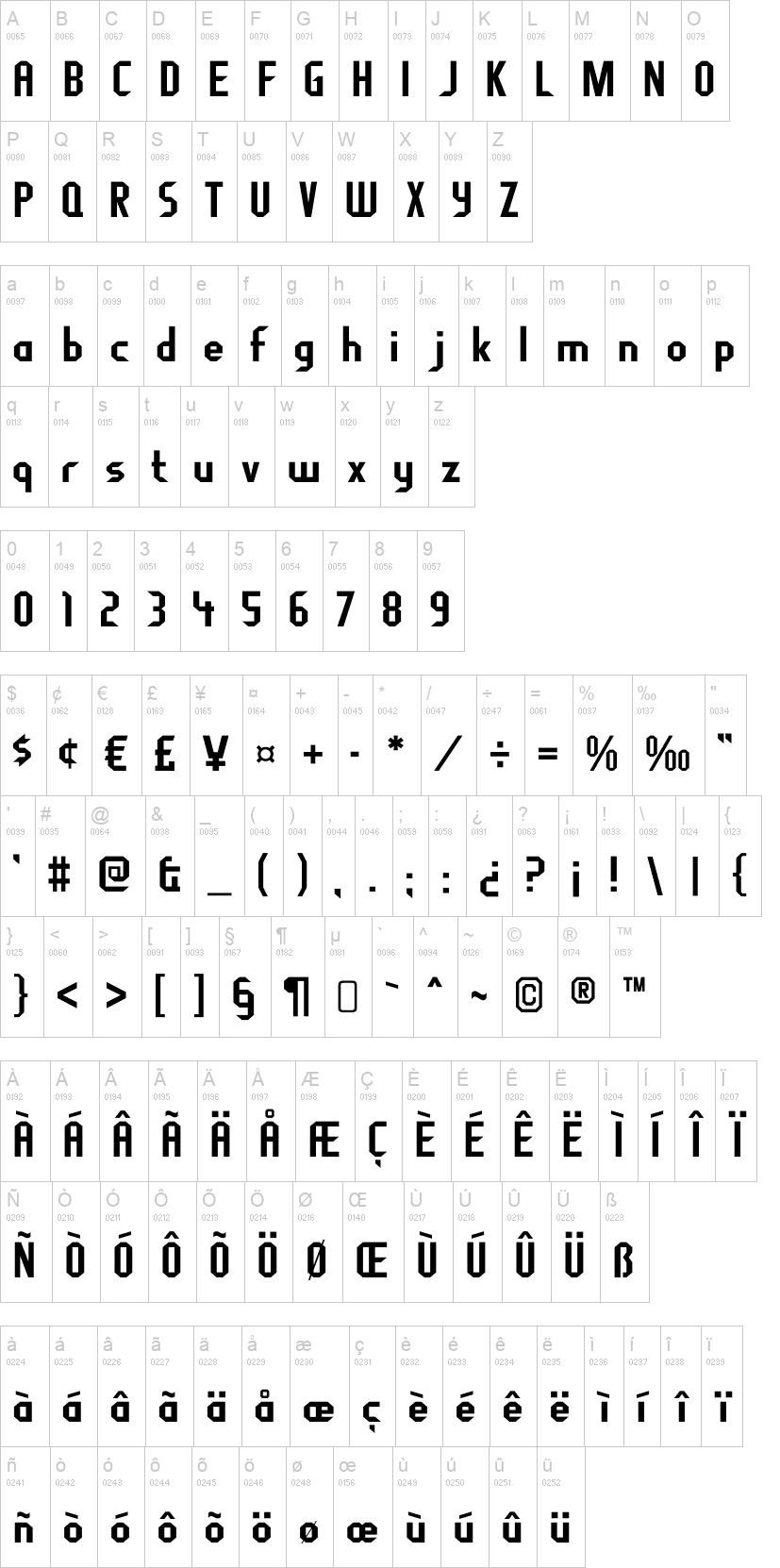
Fragile Bombers Attack.otfFragile Bombers Down.otfNote of the authorFragile Bombers is a military-themed display typeface. Its crisp letterforms will instill a sense of technological precision in your message. It comes in Regular and two rusted metal finishes. Most Latin-based European writing systems are supported, including the following languages. Afaan Oromo, Afar, Afrikaans, Albanian, Alsatian, Aromanian, Aymara, Bashkir (Latin), Basque, Belarusian (Latin), Bemba, Bikol, Bosnian, Breton, Cape Verdean, Creole, Catalan, Cebuano, Chamorro, Chavacano, Chichewa, Crimean Tatar (Latin), Croatian, Czech, Danish, Dawan, Dholuo, Dutch, English, Estonian, Faroese, Fijian, Filipino, Finnish, French, Frisian, Friulian, Gagauz (Latin), Galician, Ganda, Genoese, German, Greenlandic, Guadeloupean Creole, Haitian Creole, Hawaiian, Hiligaynon, Hungarian, Icelandic, Ilocano, Indonesian, Irish, Italian, Jamaican, Kaqchikel, Karakalpak (Latin), Kashubian, Kikongo, Kinyarwanda, Kirundi, Kurdish (Latin), Latvian, Lithuanian, Lombard, Low Saxon, Luxembourgish, Maasai, Makhuwa, Malay, Maltese, Māori, Moldovan, Montenegrin, Ndebele, Neapolitan, Norwegian, Novial, Occitan, Ossetian (Latin), Papiamento, Piedmontese, Polish, Portuguese, Quechua, Rarotongan, Romanian, Romansh, Sami, Sango, Saramaccan, Sardinian, Scottish Gaelic, Serbian (Latin), Shona, Sicilian, Silesian, Slovak, Slovenian, Somali, Sorbian, Sotho, Spanish, Swahili, Swazi, Swedish, Tagalog, Tahitian, Tetum, Tongan, Tshiluba, Tsonga, Tswana, Tumbuka, Turkish, Turkmen (Latin), Tuvaluan, Uzbek (Latin), Venetian, Vepsian, Võro, Walloon, Waray-Waray, Wayuu, Welsh, Wolof, Xhosa, Yapese, Zapotec Zulu and Zuni.